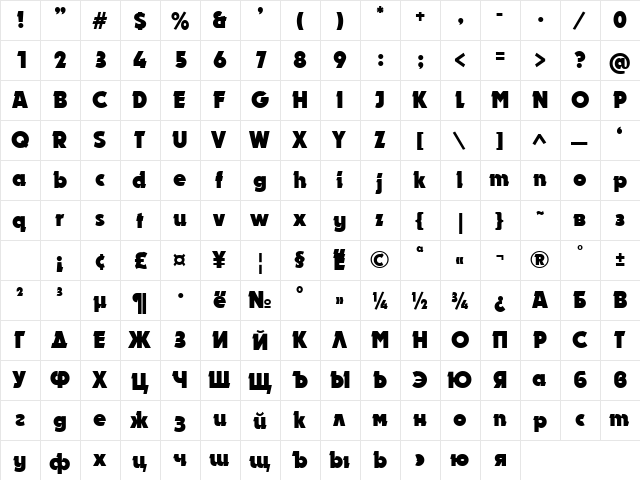
Dynar Bold
Design Context for Dynar Typeface
Dynar is a composed and adaptable typeface that performs quietly and consistently across a wide range of design contexts. The heavy weight commands attention and anchors typographic hierarchies.